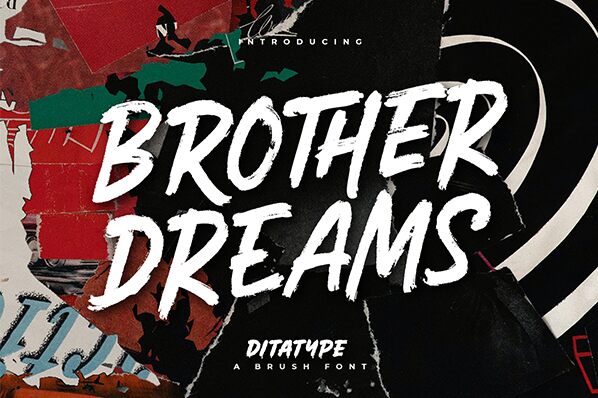
Brother Dreams breathes life into typography with its spirited brush style, showcasing a playful yet elegant character. The lavish strokes and dynamic movement reflect a creative flair that captures attention effortlessly. Its light and airy appearance adds a whimsical touch, while the slightly expanded structure invites engagement, making each letter feel alive.
Ideal for projects that seek to evoke emotion-such as invitations, branding for artisanal businesses, or lively marketing materials-this font enhances any design with its unique charm. Brother Dreams stands as a vibrant expression of creativity that resonates in both personal and professional contexts, appealing to those looking for an artistic voice in their visual communications.
Brother Dreams
Ditatype
Din Studio Type Foundry